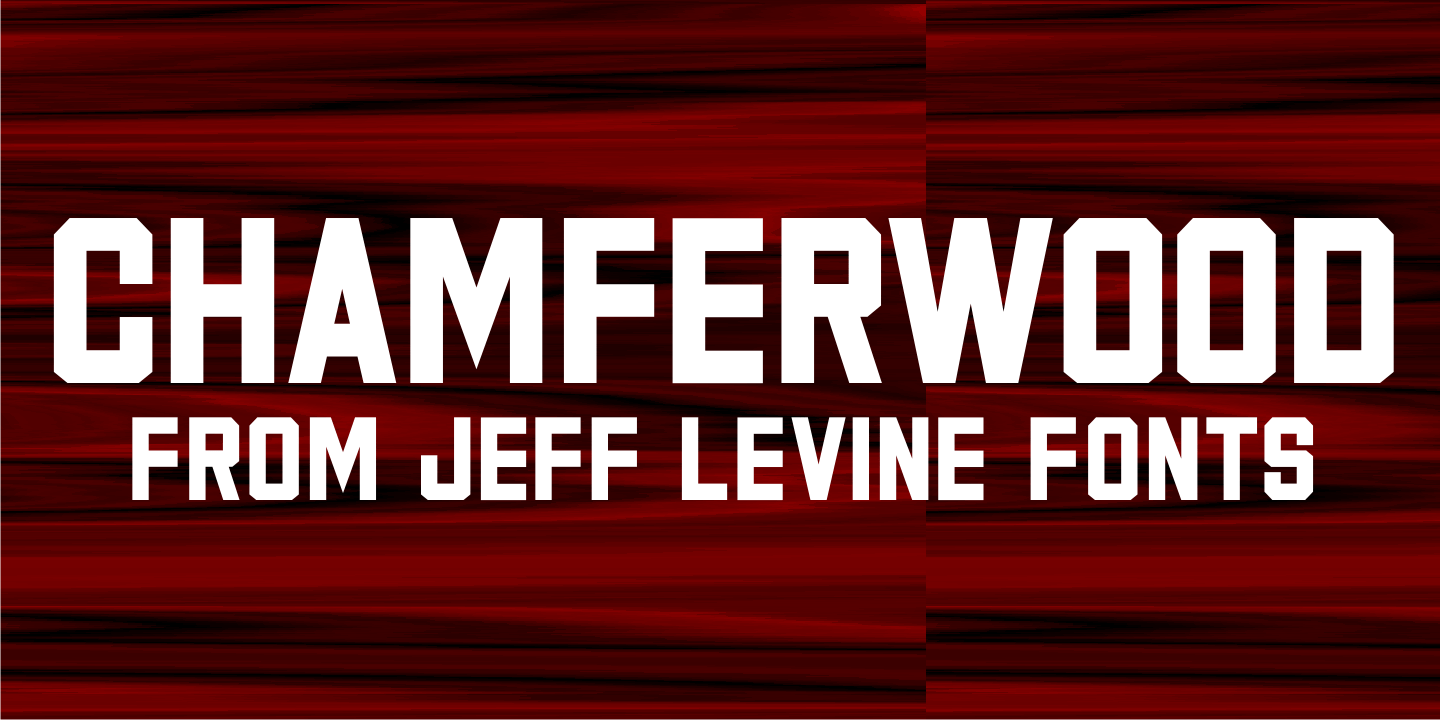
Chamferwood
Chamferwood JNL is another interpretation of the block lettering style most popular during the late 1800s and the early 1900s. The design was modeled from examples from a set of wood type. Font Styles: